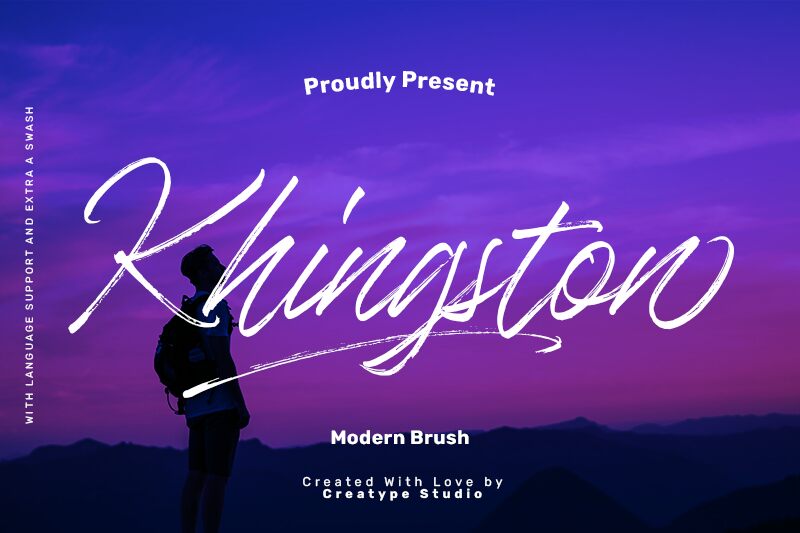
Khingston font by Creatype Studio is a free brush script font brimming with contemporary appeal. The font’s distinct look is characterized by expressive, dynamic, and fluid curves – features that all come together to give a casual and relaxed air. Khingston is known for being highly legible with wide readability. Designers from all over the world can use this artistic new font to make creative and impactful designs for posters, pamphlets, book covers, and much more.
Khingston is beautifully suited for several applications including branding, interior design, and a wide variety of other creative endeavors. Readers will especially enjoy its applications in packaging design, logotype, high-fashion magazines, luxury branding, advertising, banners, posters, signage, website design, social media, and mobile applications.